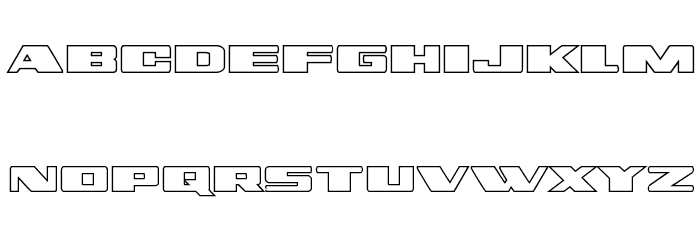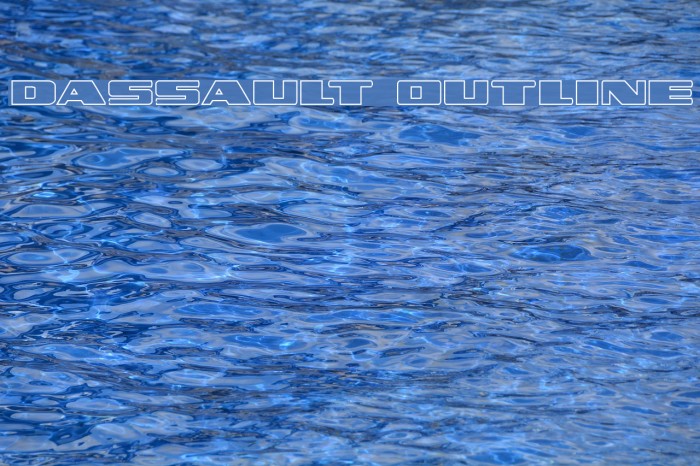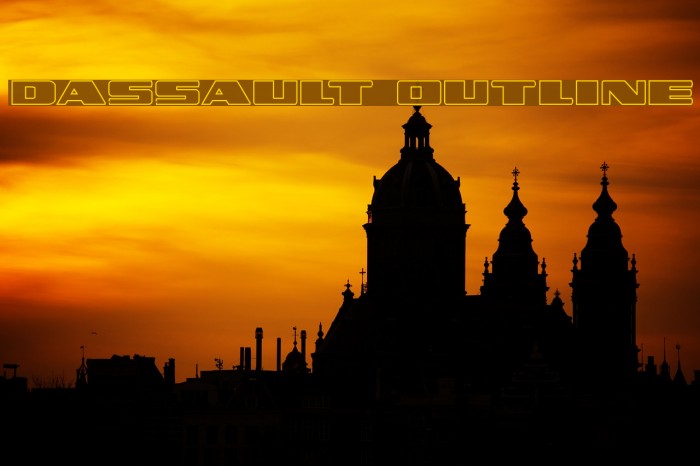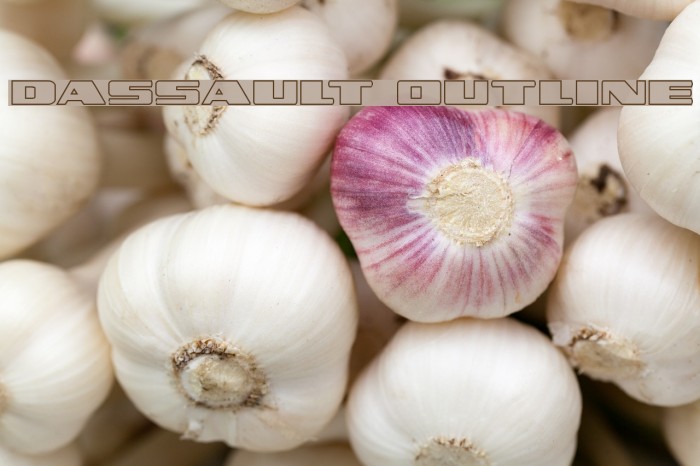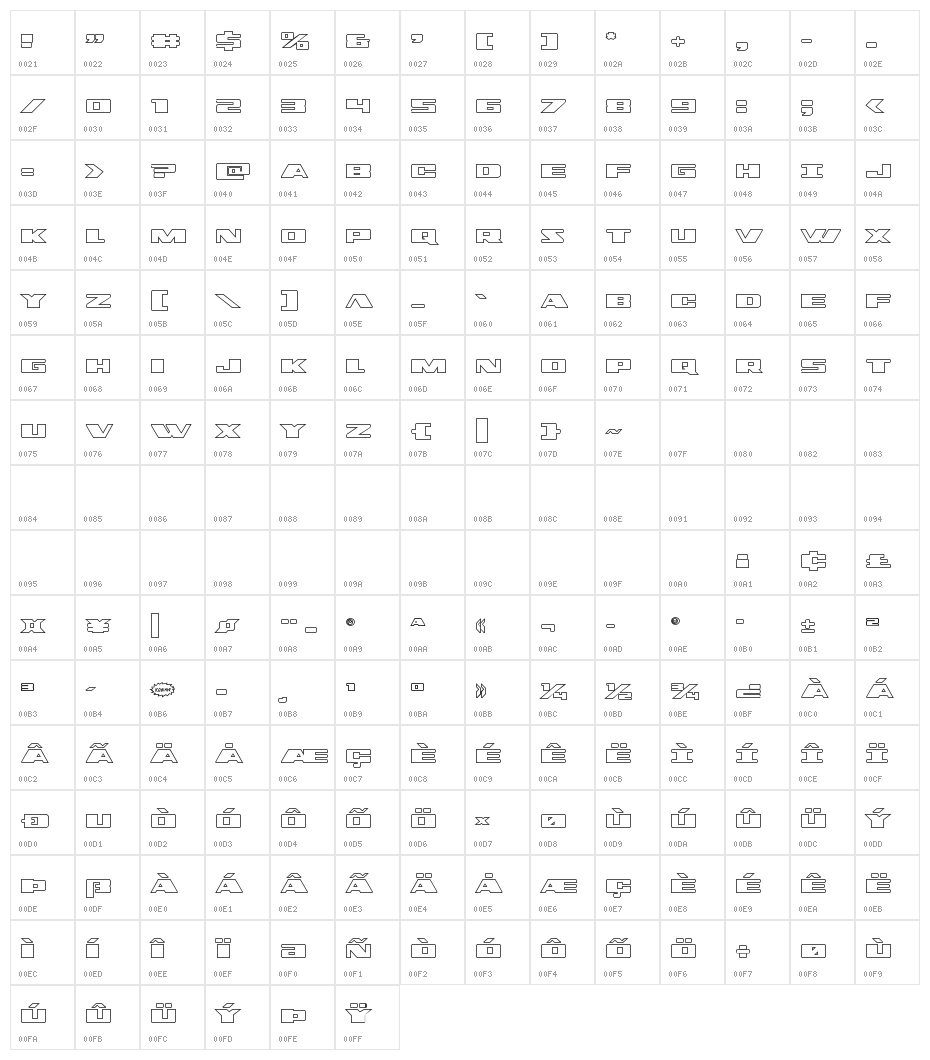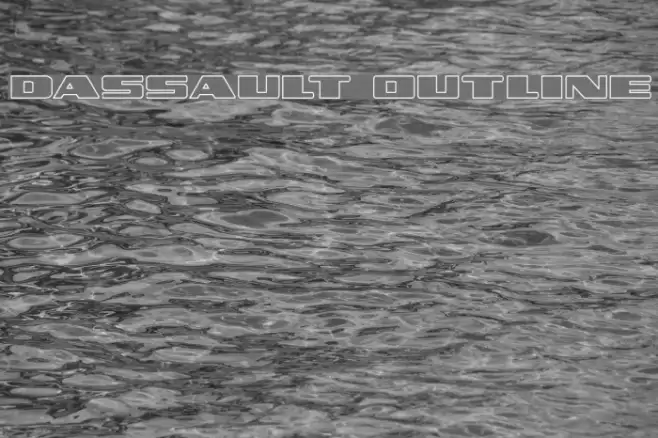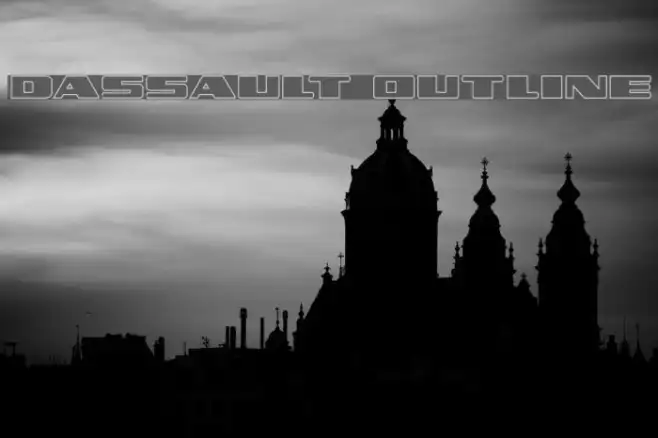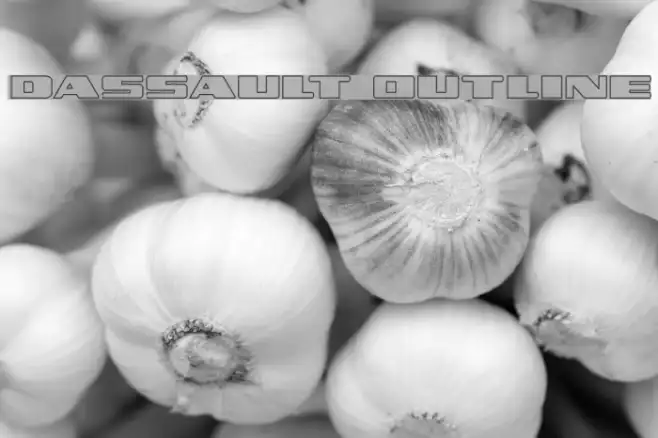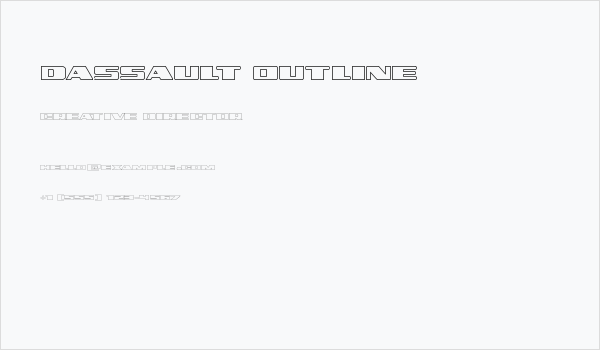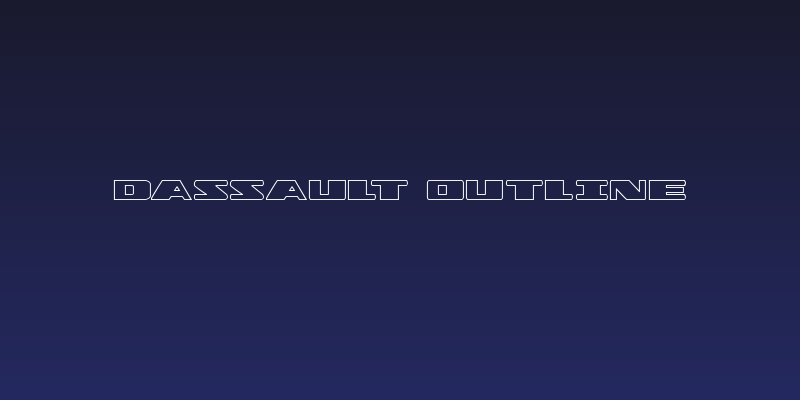
Dassault Outline Font
This font features a bold, geometric outline style that gives it a futuristic and industrial appearance. The characters are constructed with sharp angles and straight lines, creating a sense of precision and modernity. The outline design adds a unique dimension, making it stand out in any design project. The uppercase letters are particularly striking, with a uniform height and width that maintain consistency across the alphabet. The numerals and special characters follow the same design principles, ensuring a cohesive look. This font is ideal for projects that require a bold statement, such as branding, posters, or digital media.
A bold, geometric outline font with a futuristic and industrial style.
- Proposed Projects: Ideal for branding, posters, digital media, and any project requiring a bold, modern statement.